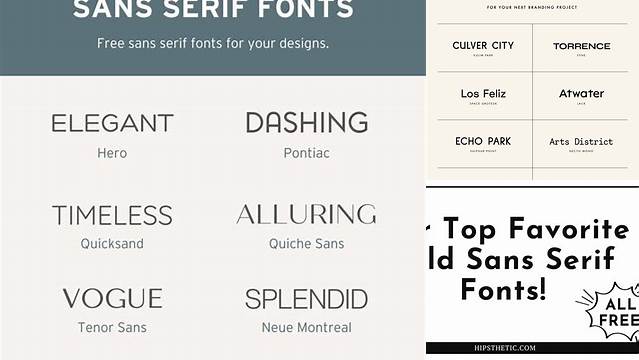
Free Bold Sans Serif Fonts For Commercial Use: A Comprehensive Guide
Hey guys! Are you on the hunt for bold sans serif fonts that you can use for your commercial projects without breaking the bank? Look no further! In this guide, we'll dive into the world of free bold sans serif fonts that are perfect for a variety of uses, from website design to branding and beyond. We'll explore what makes these fonts so versatile and why they're a great choice for adding a modern, impactful touch to your work. Let's get started!
Why Choose Bold Sans Serif Fonts?
Bold sans serif fonts are a cornerstone of modern design, and for good reason. Their clean lines and strong presence make them incredibly versatile for a wide range of applications. The term "sans serif" literally means "without serifs," referring to the small decorative strokes at the ends of letters that are characteristic of serif fonts like Times New Roman. Sans serif fonts, on the other hand, have a more streamlined, minimalist appearance.
When you add the "bold" attribute, you amplify the font's impact even further. Bold fonts command attention, making them ideal for headlines, titles, and other elements that you want to stand out. They also work well in body text, especially when you need to emphasize certain words or phrases. The combination of boldness and sans serif simplicity creates a contemporary and authoritative look that's perfect for businesses and brands aiming to project confidence and clarity.
One of the key advantages of using bold sans serif fonts is their readability. The clear, unadorned letterforms are easy on the eyes, whether they're displayed on a screen or printed on paper. This is crucial for ensuring that your message is effectively communicated to your audience. Whether you're designing a website, creating marketing materials, or putting together a presentation, choosing a bold sans serif font can help you make a strong visual statement without sacrificing legibility.
Furthermore, bold sans serif fonts tend to work well in a variety of sizes and contexts. They remain legible even at smaller sizes, which is essential for mobile-friendly designs and other applications where space is limited. Their clean design also means they pair well with other fonts, both serif and sans serif, giving you plenty of flexibility when it comes to creating a cohesive visual identity. In the following sections, weâll explore some fantastic free options that you can start using today.
Top Free Bold Sans Serif Fonts for Commercial Use
Now, letâs get to the good stuff â the best free bold sans serif fonts that you can use for your commercial projects. Finding fonts that are both high-quality and free for commercial use can sometimes feel like a treasure hunt, but there are some real gems out there. Here are a few of my favorites, along with some ideas on how you can use them:
Oswald: Oswald is a classic sans serif font that has become incredibly popular in recent years. It was designed by Vernon Adams and is available under the SIL Open Font License, which means it's free for both personal and commercial use. Oswald has a slightly condensed style, which makes it great for headlines and titles where you want to make the most of your space. The bold weights are particularly strong and impactful. Itâs a great choice for website headers, print materials, and even logos. You'll often see Oswald used in tech startups and modern businesses looking to convey a sense of innovation and professionalism.
Roboto: Roboto, designed by Christian Robertson for Google, is another fantastic option. This font family is incredibly versatile, with a wide range of weights and styles available, including several bold variations. Roboto has a clean, geometric design that feels both modern and approachable. It's an excellent choice for body text as well as headlines, making it a true workhorse font. Because it was designed for the Android operating system, itâs optimized for screen readability, which is a huge plus for web design. Roboto is perfect for user interfaces, apps, and any project where clarity and legibility are paramount.
Montserrat: Montserrat is a beautiful sans serif font inspired by the urban typography of Buenos Aires. Julieta Ulanovsky designed it, and itâs another excellent choice for commercial projects. The bold weights of Montserrat have a distinct, elegant feel that works well for branding, advertising, and editorial design. Itâs a particularly good fit for projects that need a touch of sophistication without sacrificing a modern edge. Montserratâs clean lines and balanced proportions make it a visually appealing option for a wide array of uses, from logos and websites to brochures and posters.
Open Sans: Open Sans is a humanist sans serif font designed by Steve Matteson. It's known for its open forms and neutral, yet friendly appearance. The bold weights of Open Sans are highly readable, making it a solid choice for both headings and body text. Open Sans is widely used across the web and in print, and itâs especially effective for projects that require a clean and approachable feel. Its versatility and excellent legibility make it a reliable choice for everything from websites and apps to business cards and presentations.
Lato: Lato, designed by Ćukasz Dziedzic, is a sans serif typeface with semi-rounded details that give it a warm and friendly character. The bold weights are strong and legible, making them great for headings and subheadings. Lato is a versatile font that works well in a variety of contexts, from corporate communications to personal projects. Its balanced design and clean lines make it a popular choice for both print and digital media. Latoâs subtle warmth sets it apart from some of the more geometric sans serifs, making it a great option when you want to add a touch of personality to your design.
Whether you're designing a website, creating marketing materials, or building a brand identity, bold sans serif fonts are a versatile and impactful choice. Their clean lines and strong presence make them perfect for conveying a modern, confident, and clear message. And with so many free options available, you can create stunning designs without breaking the bank. Happy designing!